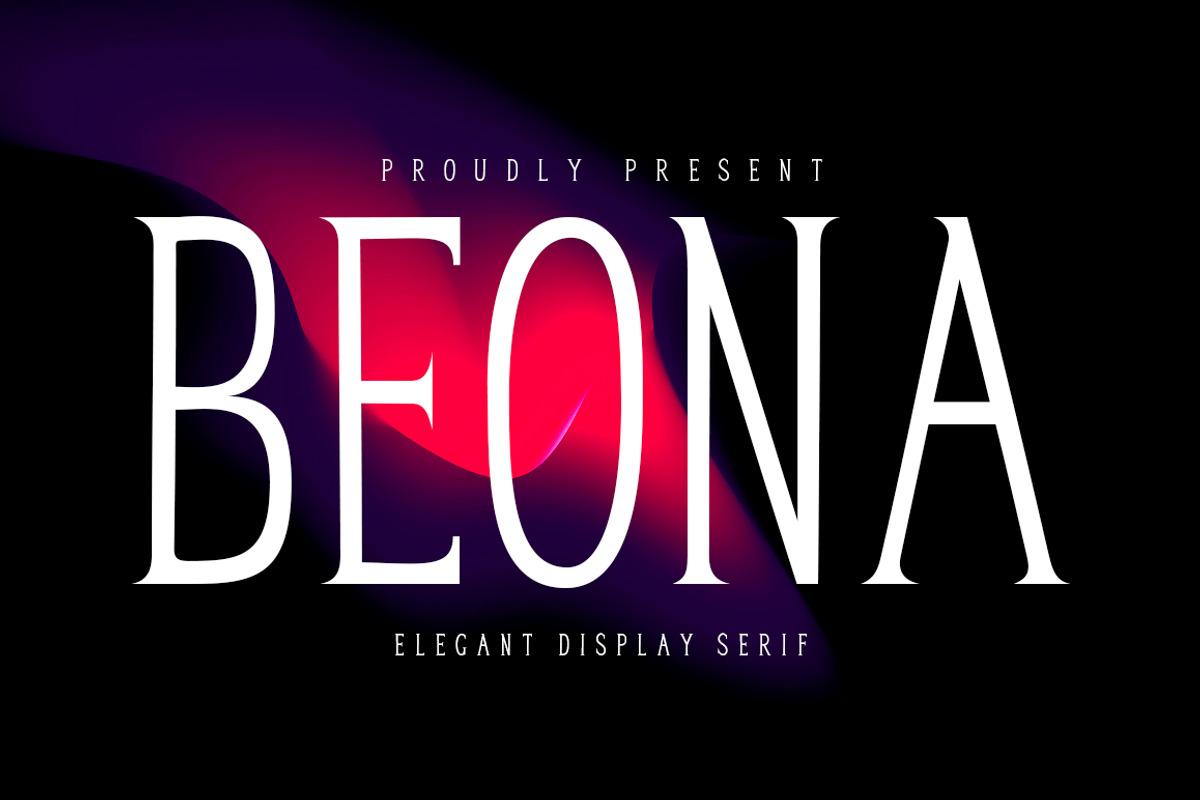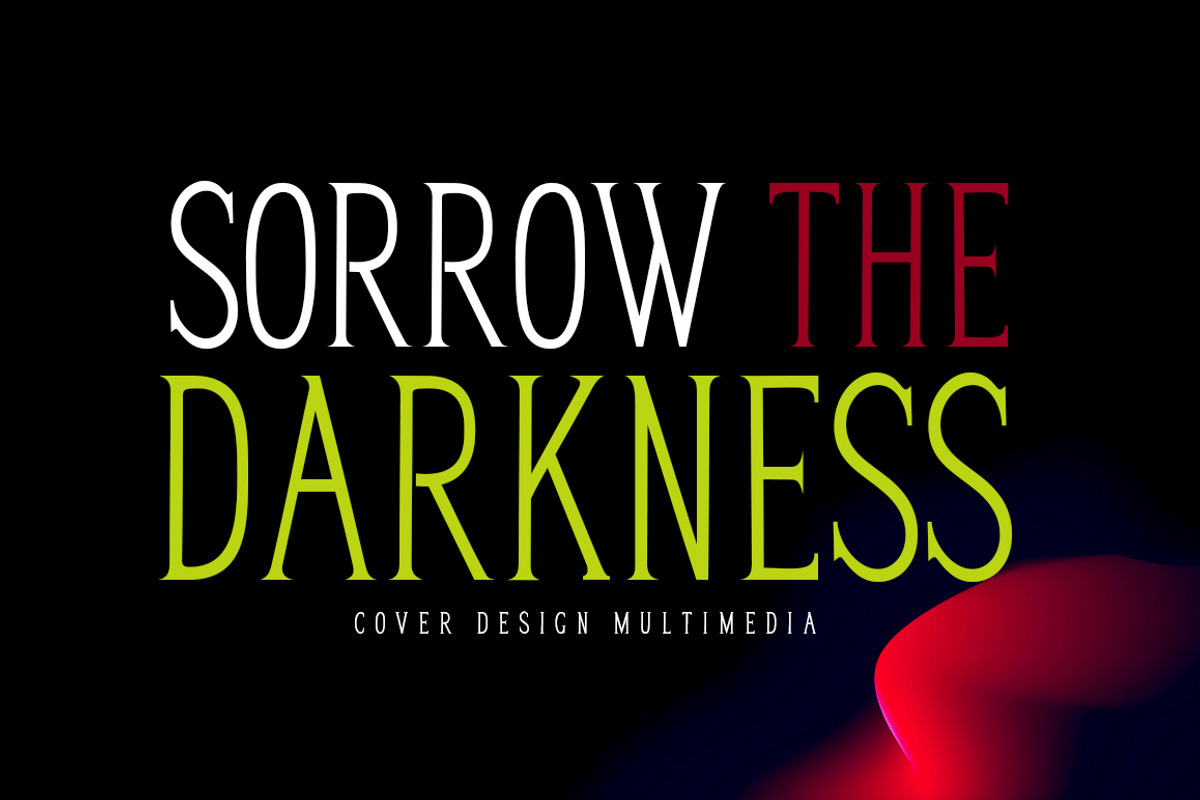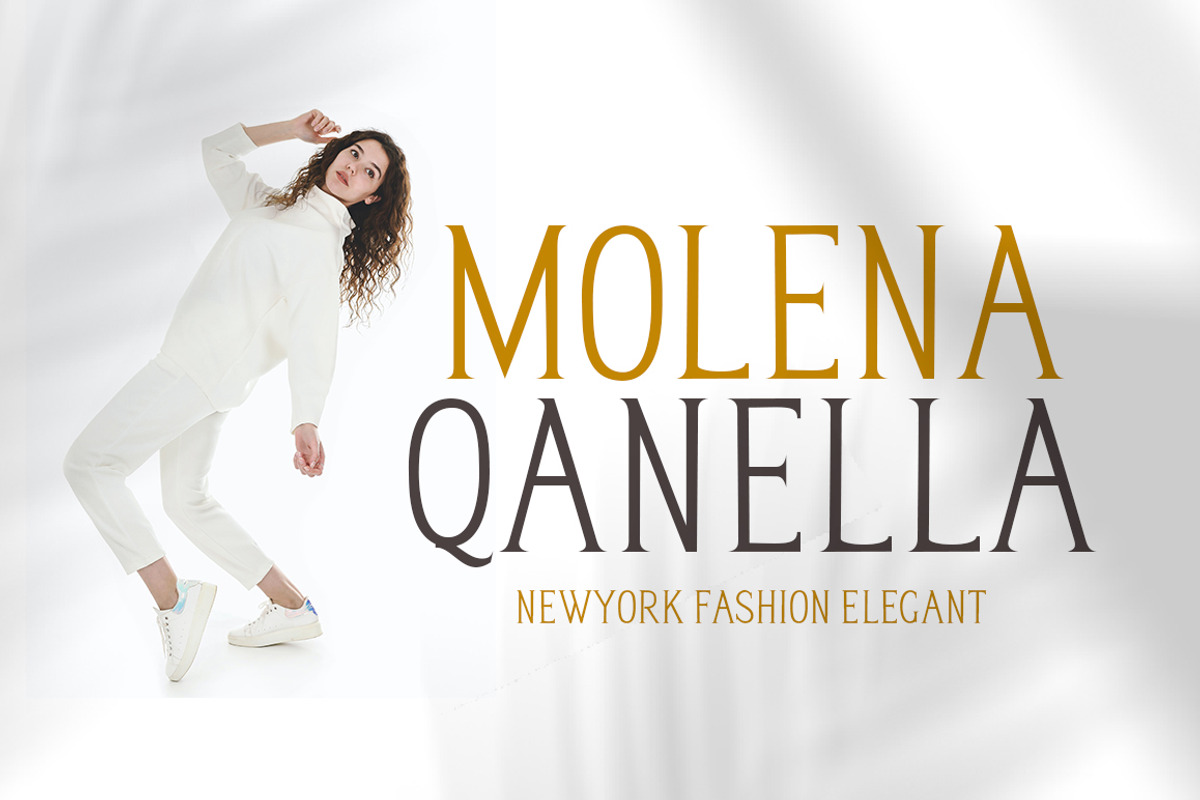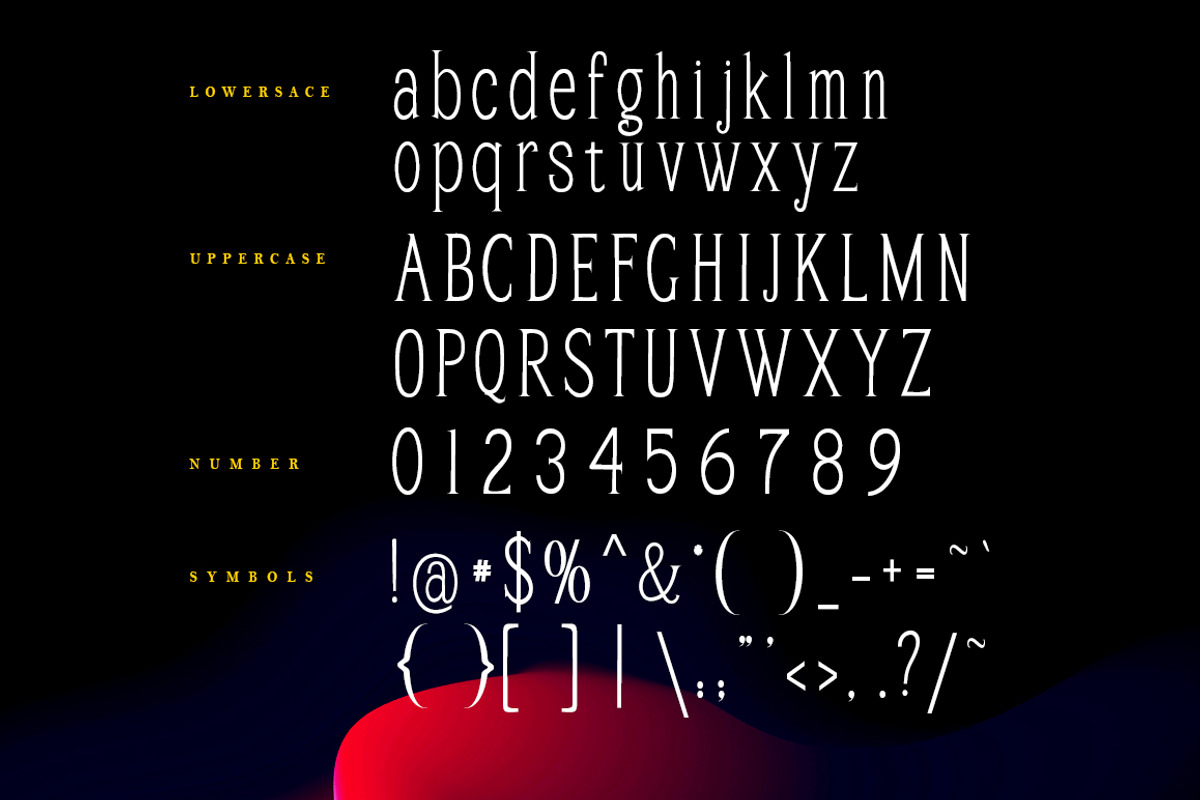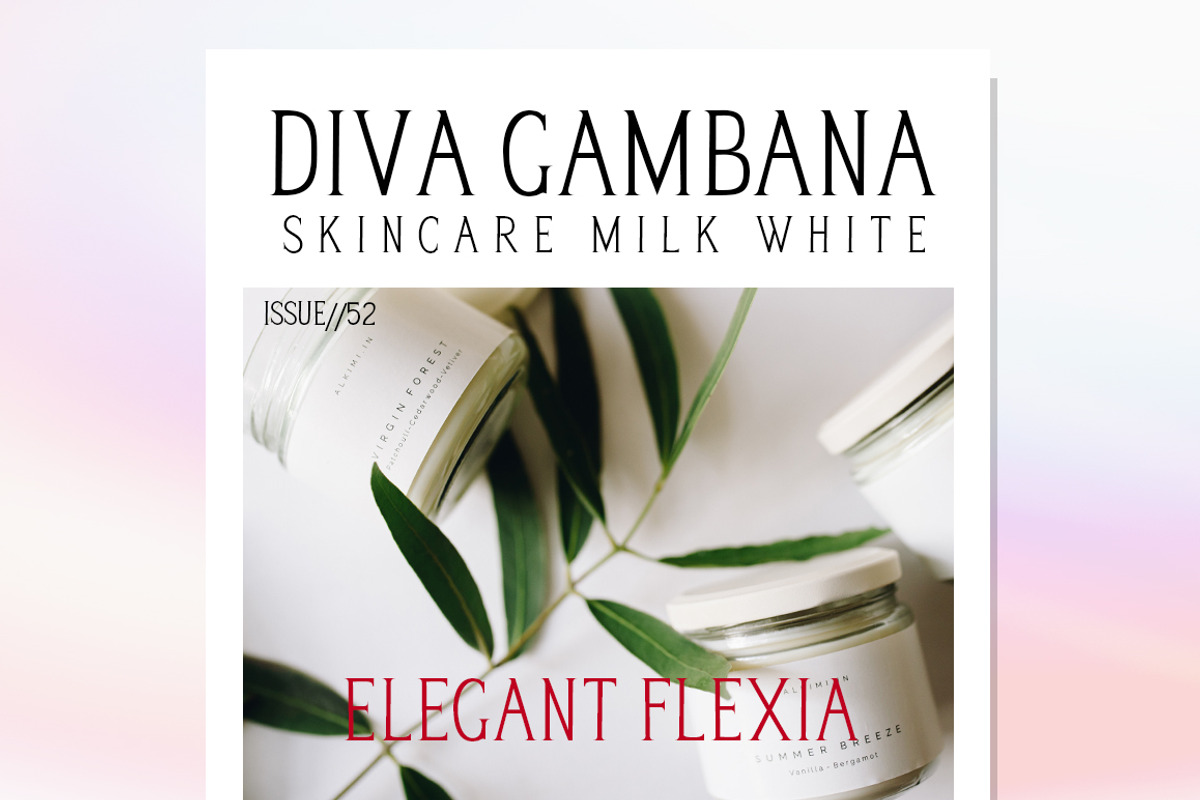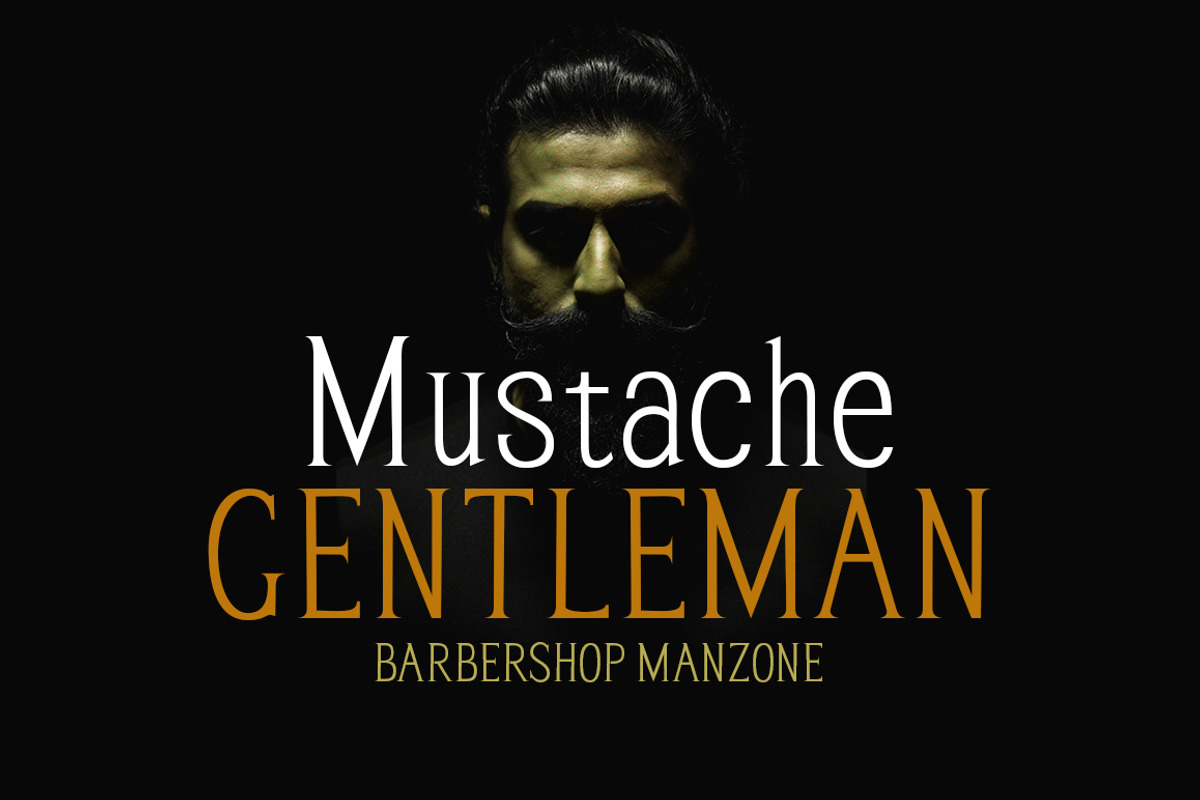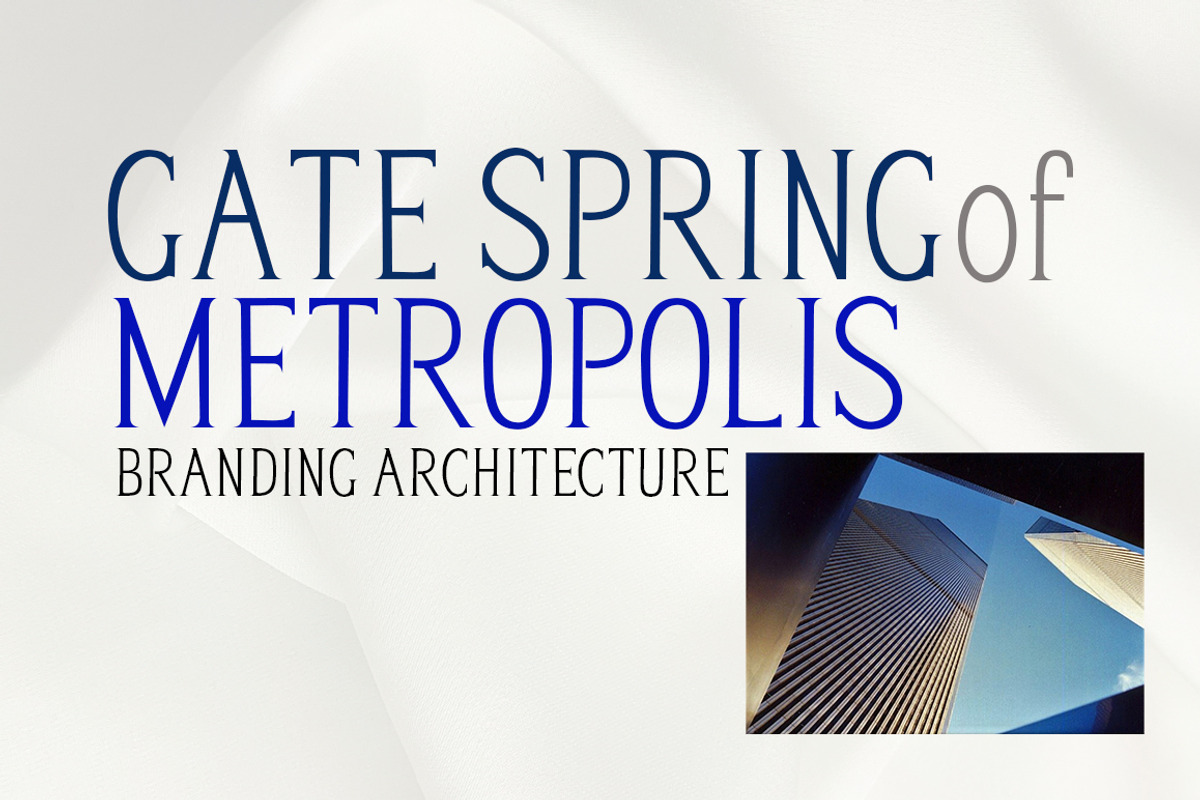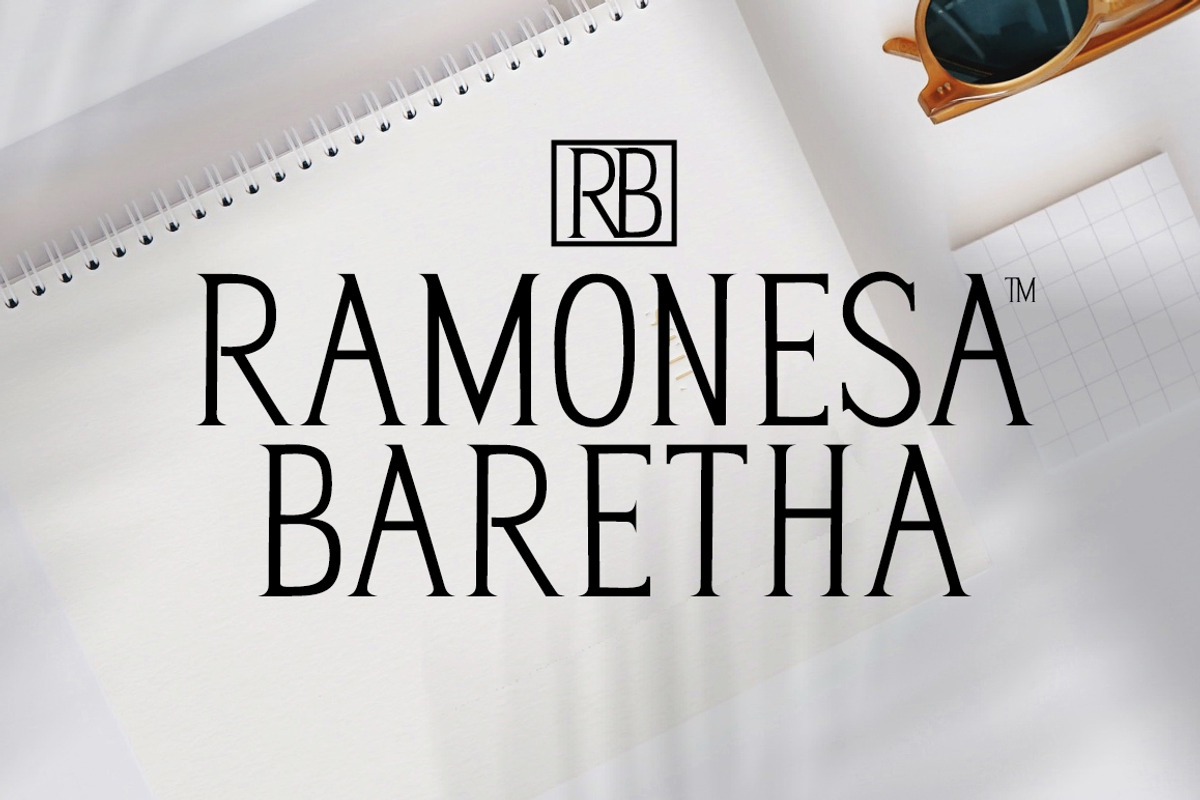
Beona Serif Font
Beona serif font family with a feminine style. This beautiful collection will instantly add class to all of your design projects. As a bonus, you will receive 9 hand-drawn shapes that complement the fonts perfectly.
This stylish font family is timeless and can not be missed in your font collection. It is the perfect branding font and will help you to easily create logos, wedding designs, and all other commercial projects. Files Include. Boena Reguler (otf, ttf ) Beona Bold ( Otf, Ttf ) Beona Display Oblique. ( Otf, Ttf ).